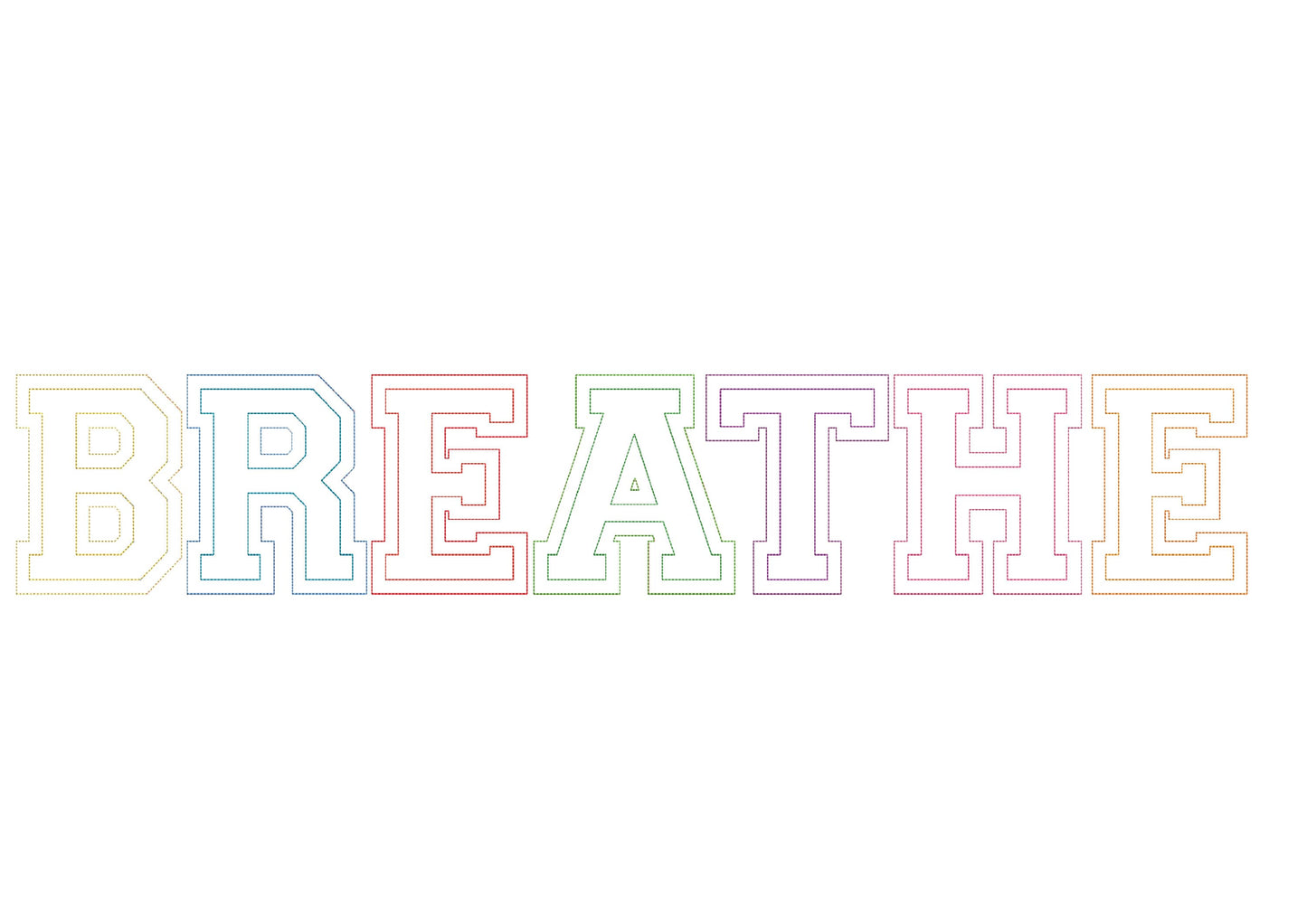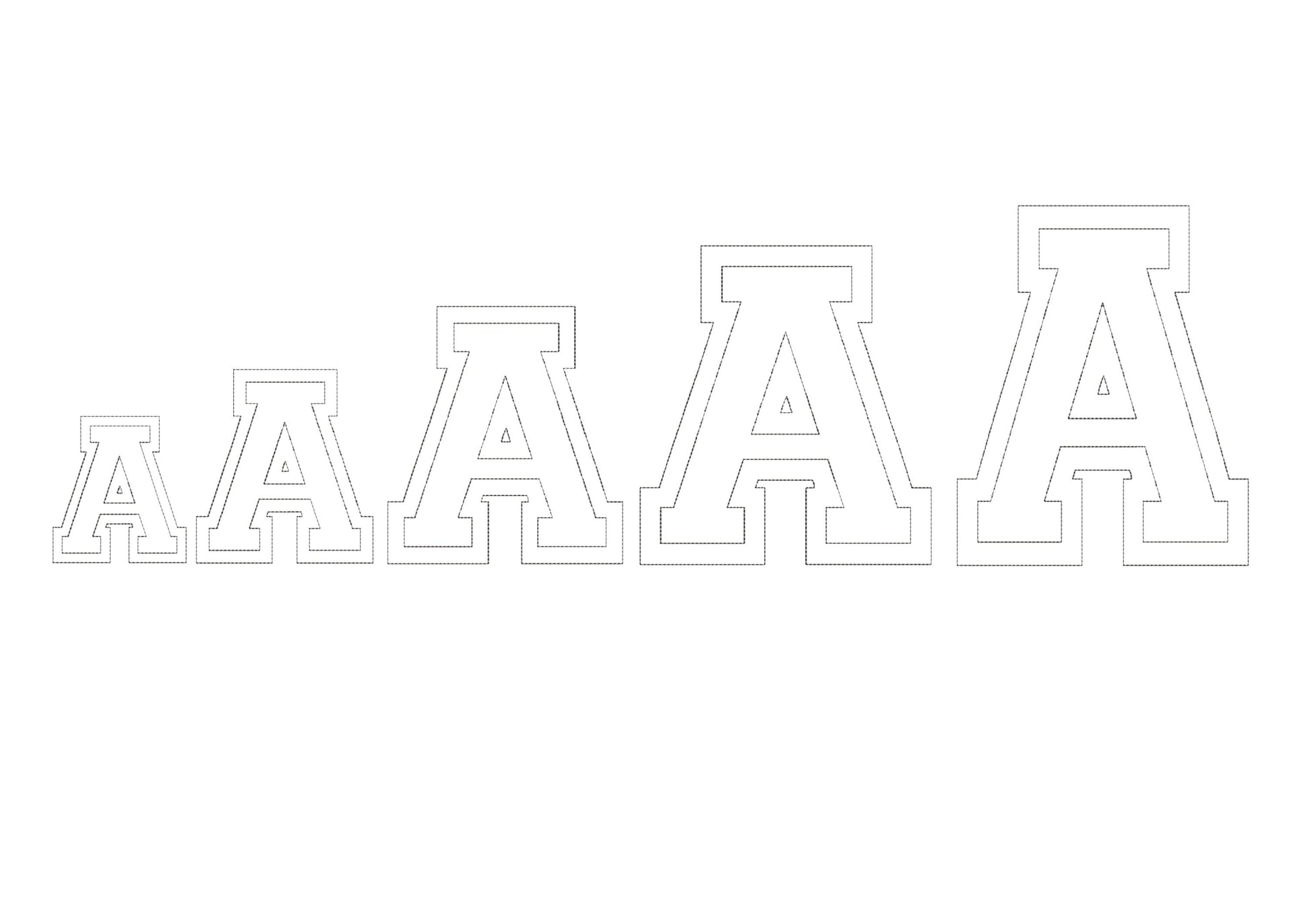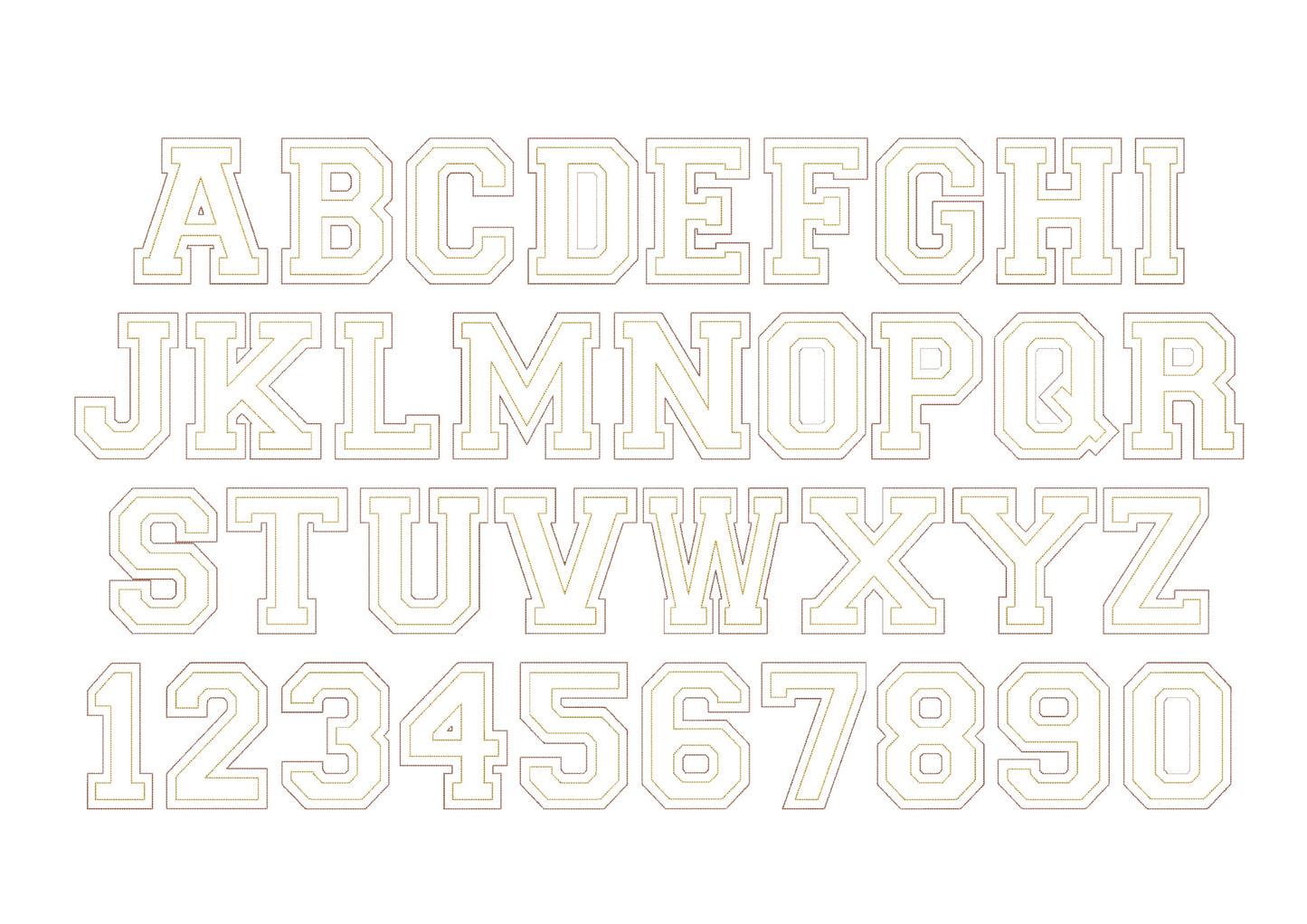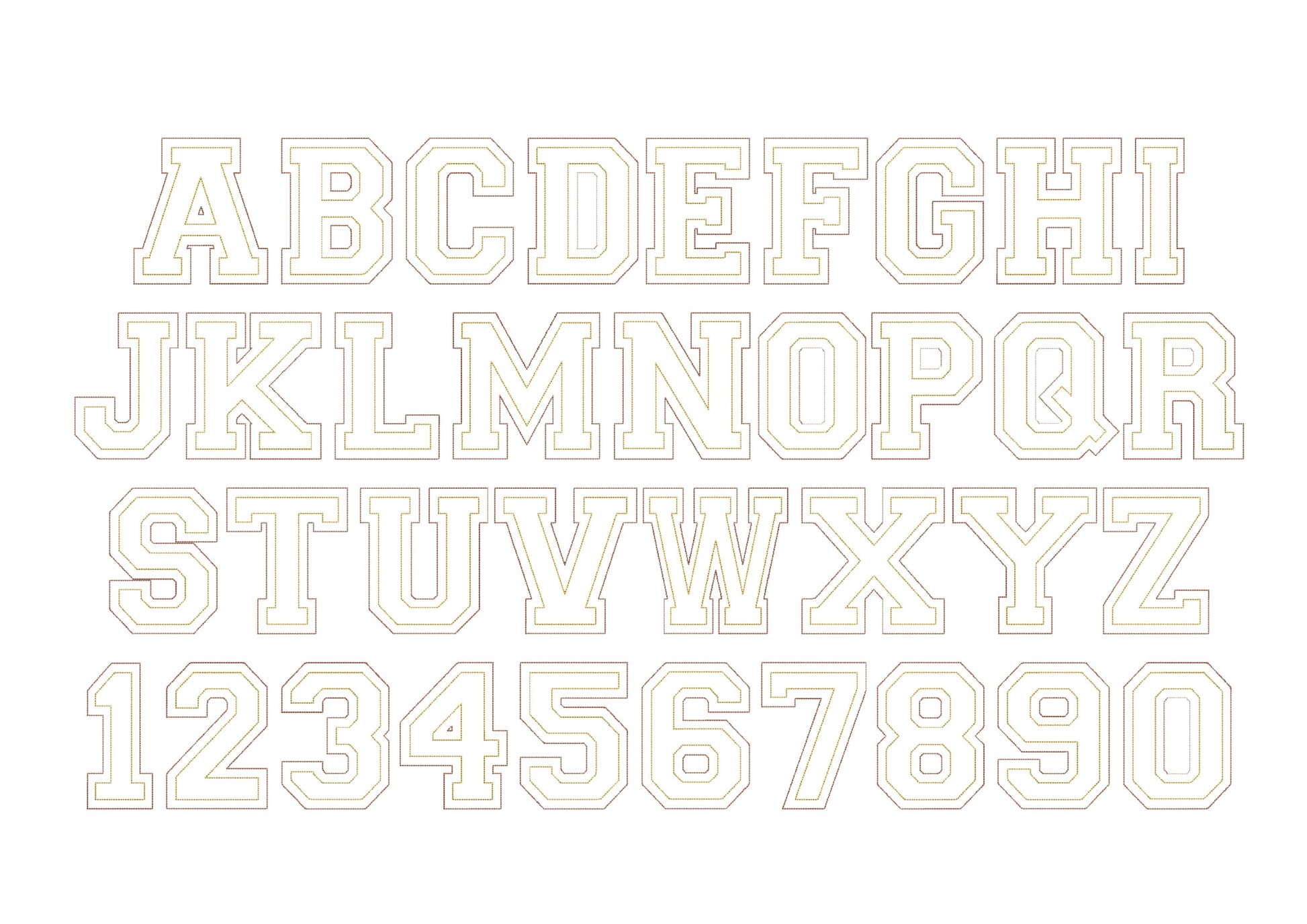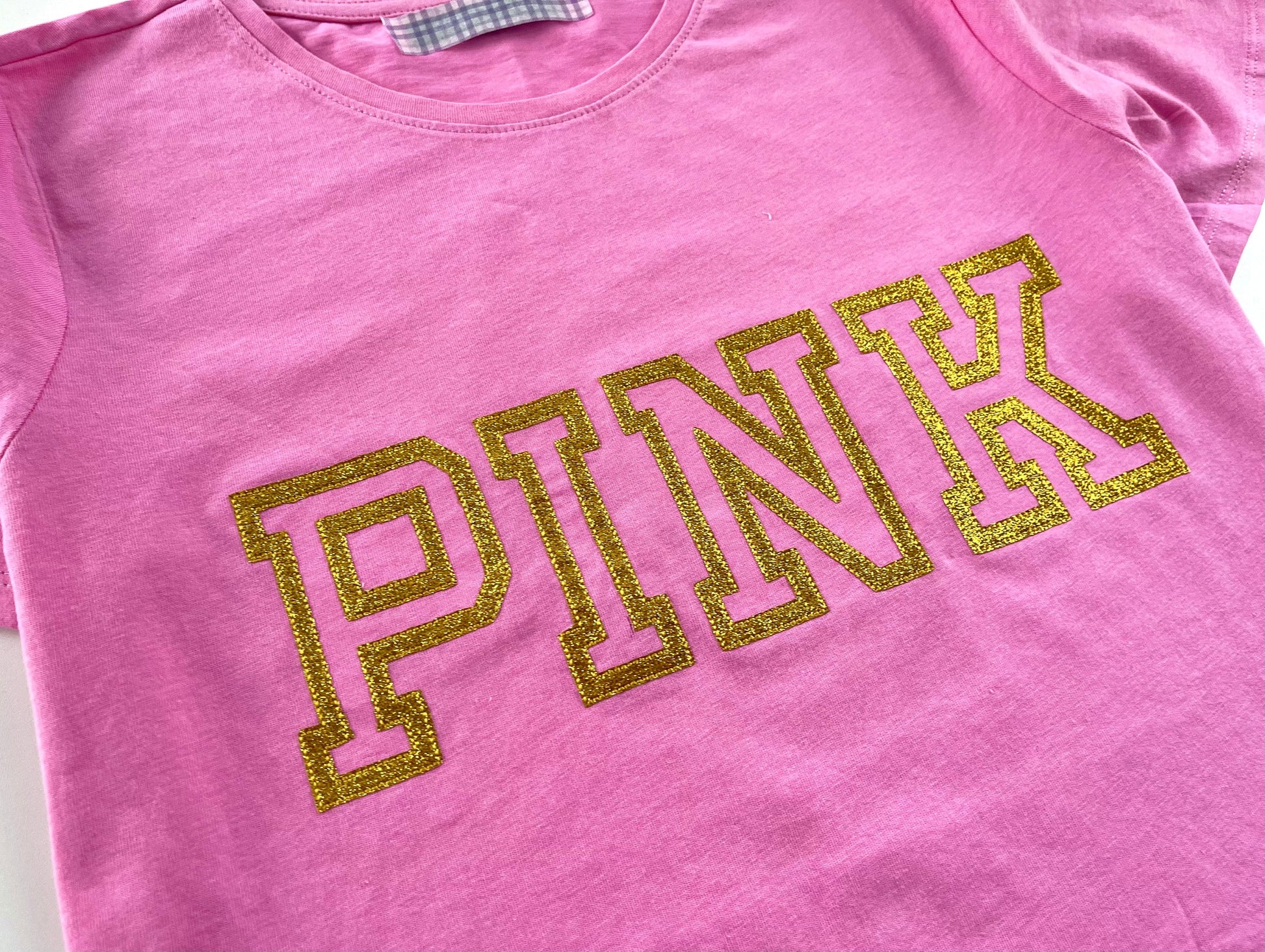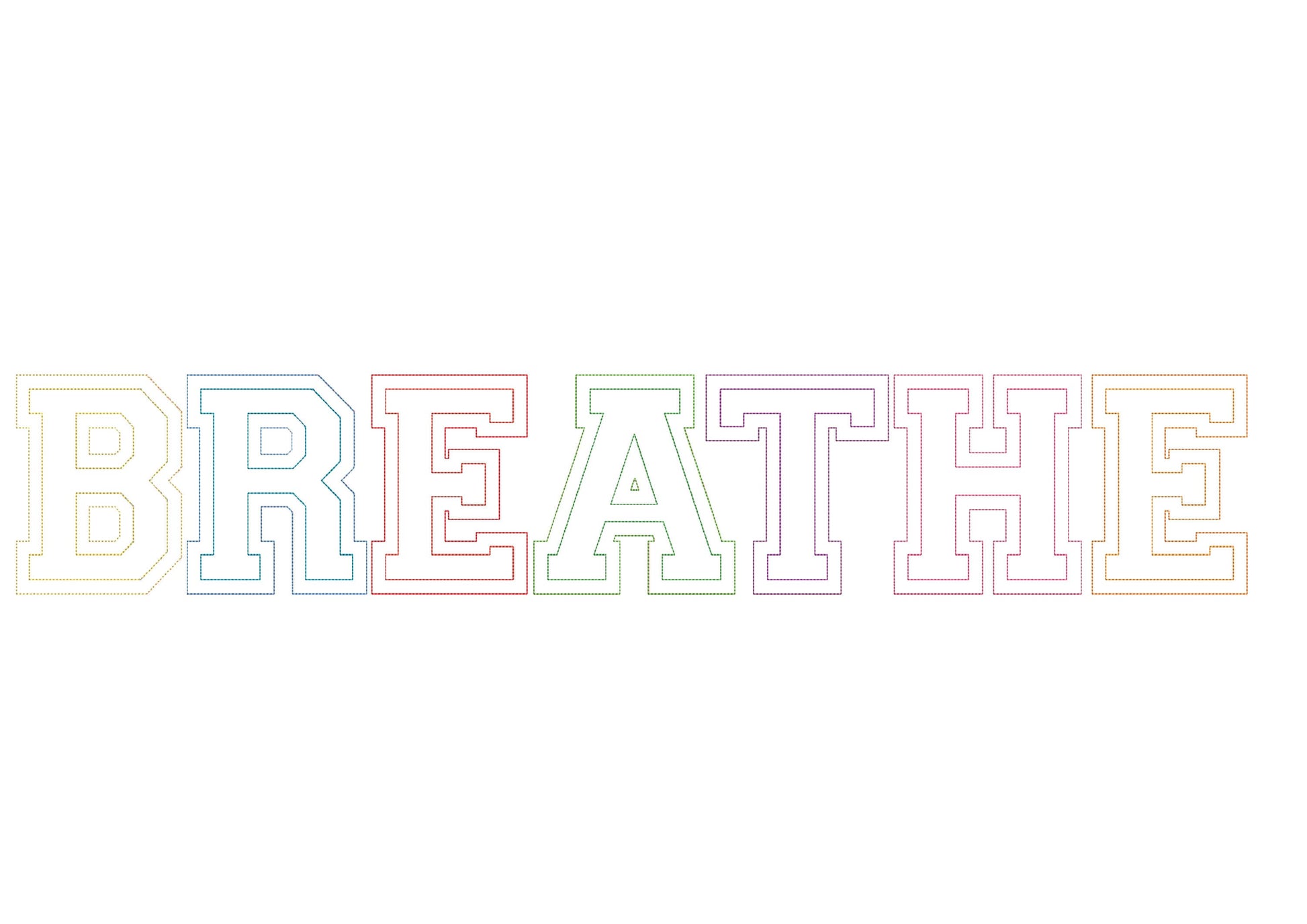
Or click to open the linkA varsity block font for easy glitter vinyl applique, for team names and numbers on shirts, hoodies and bags.
Quick and easy with glitter heat transfer vinyl. Letters A to Z and numbers 0 to 9 in five sizes: 3, 4, 5, 6 and 7 inches.